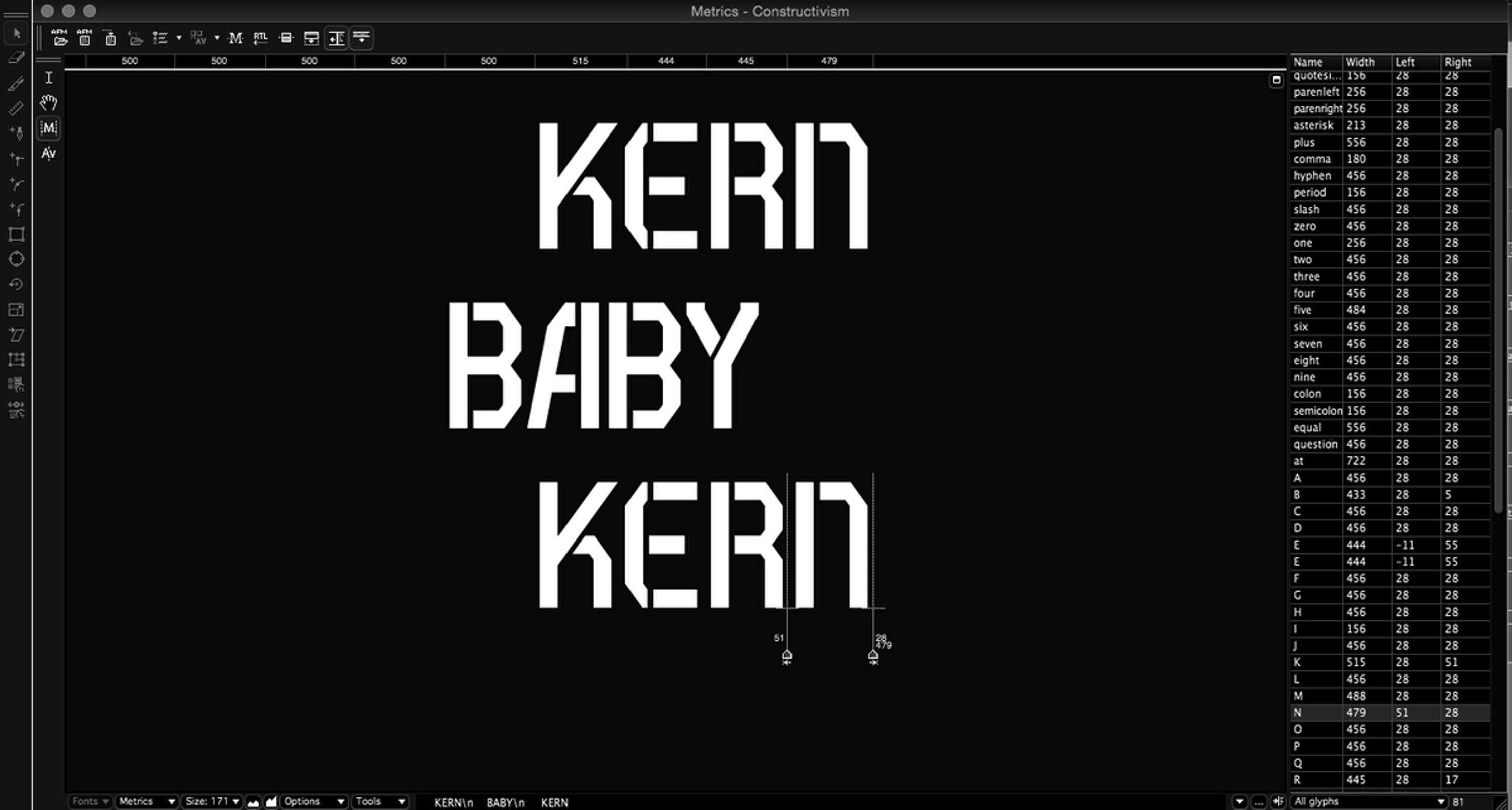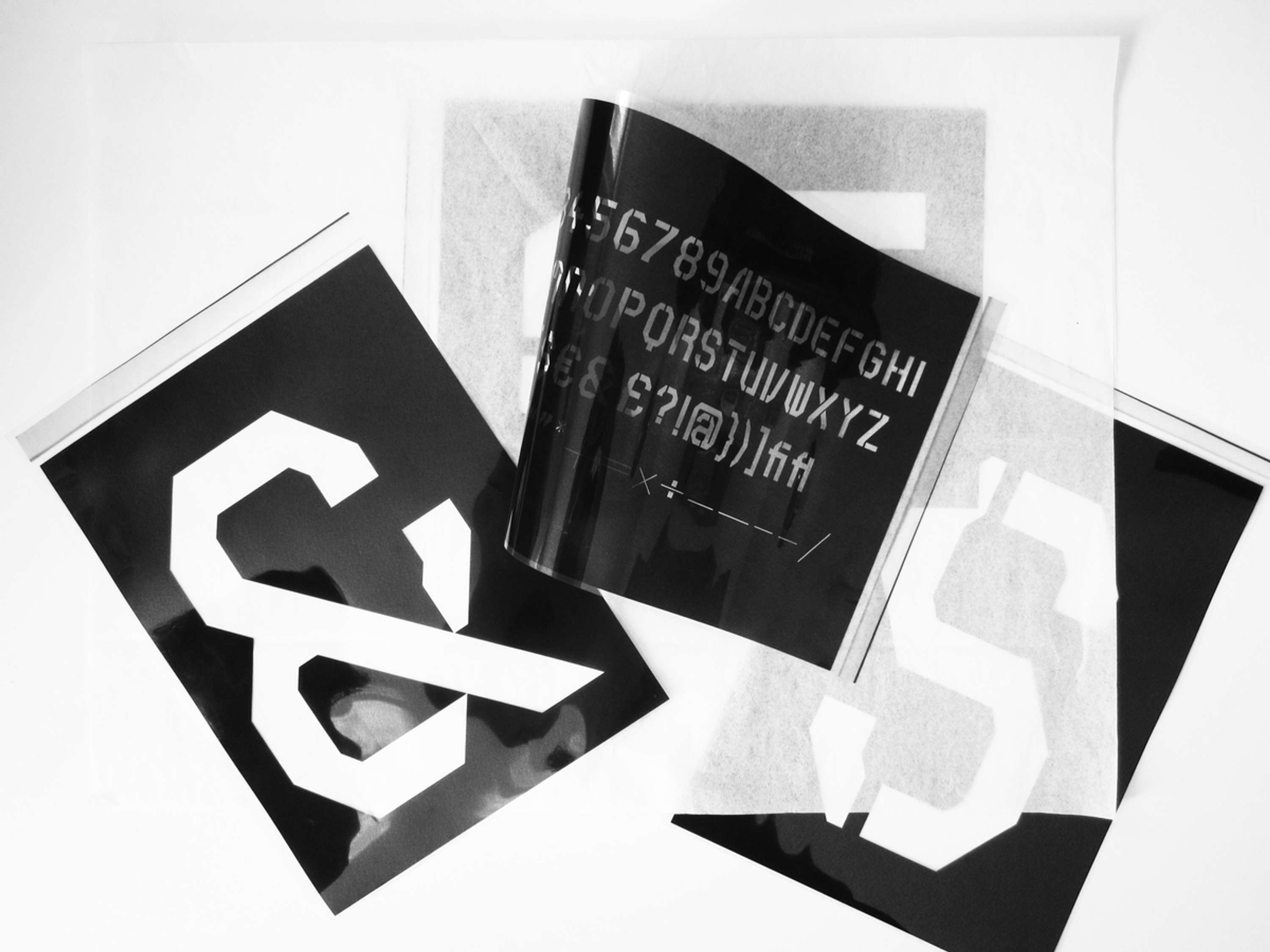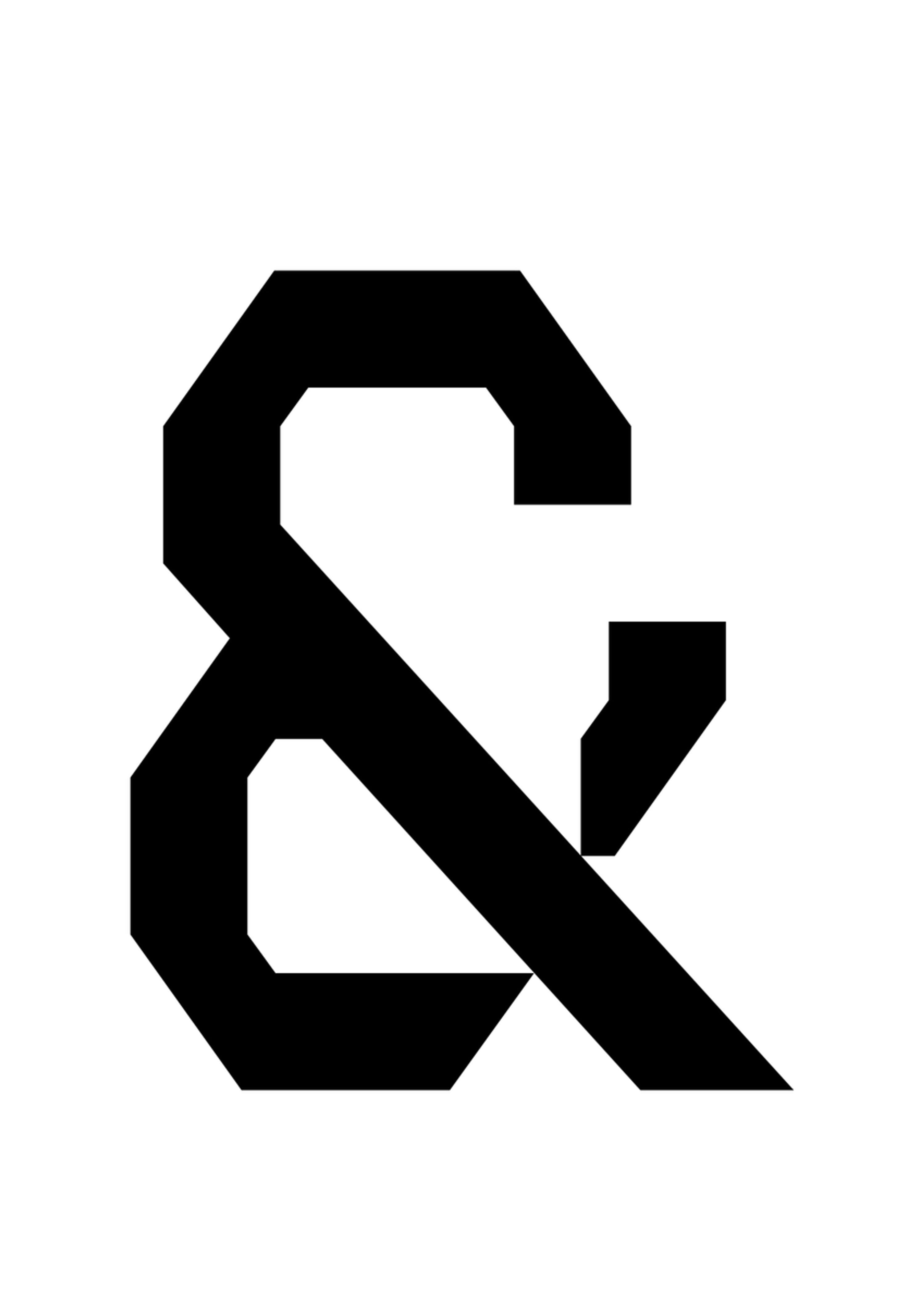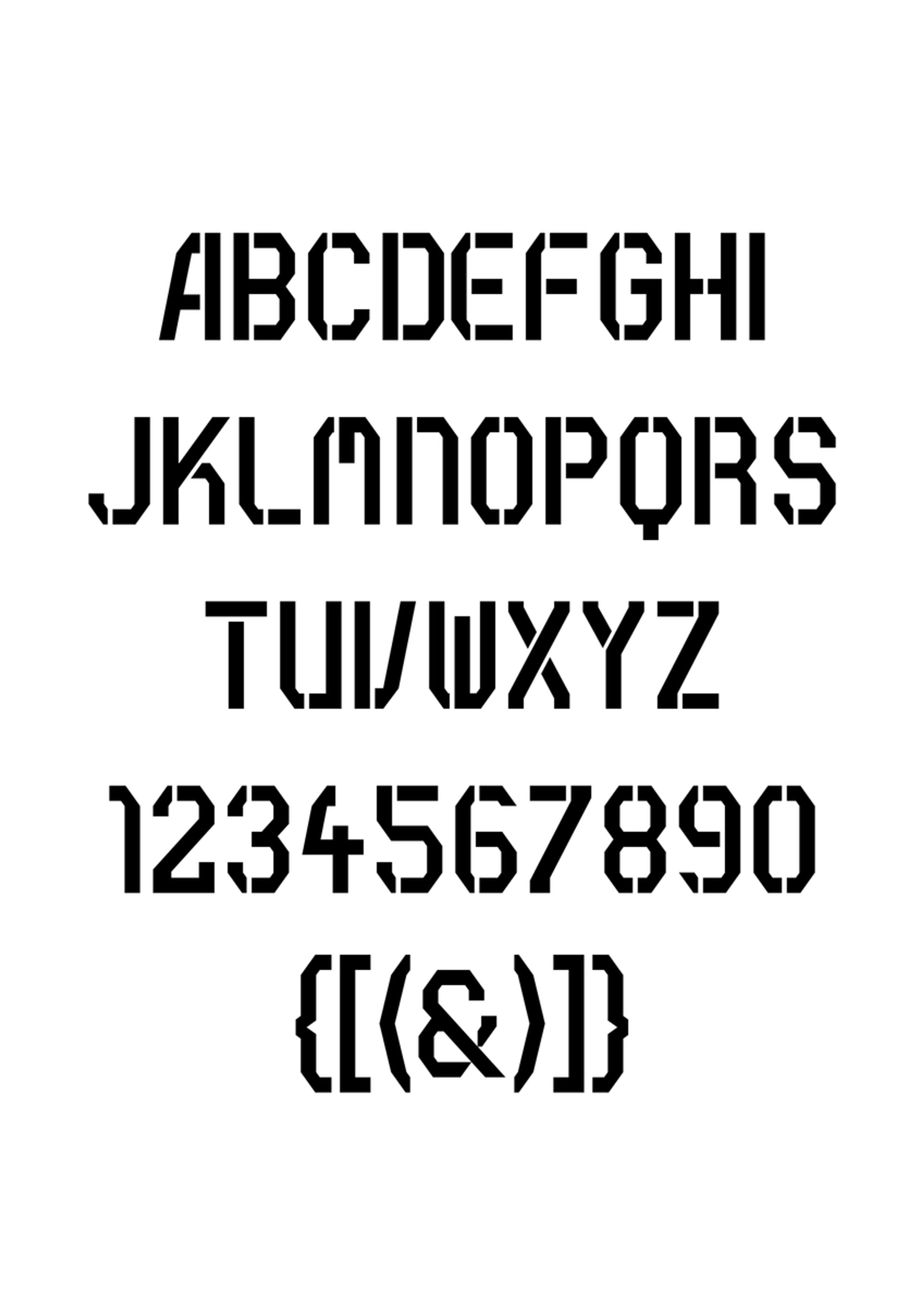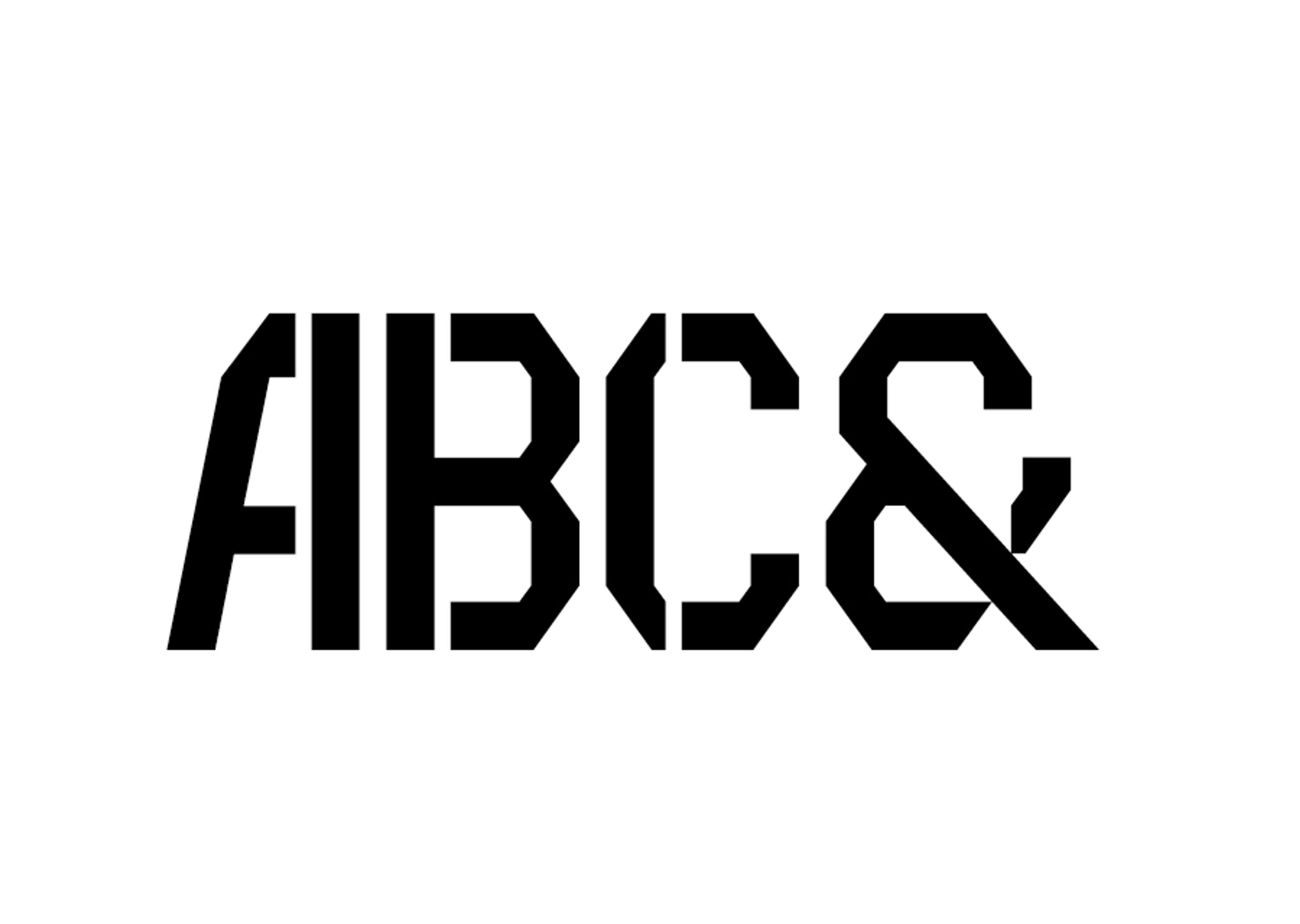
Post Constructivism is a typeface which is based on the Constructivist art movement in 1919. I have decided to create a stencil based font with a modular system using a custom grid, with white space that creates cuts in the letterform to compliment the Constructivist painting and without losing functionality as a working typeface which is comfortable to read.